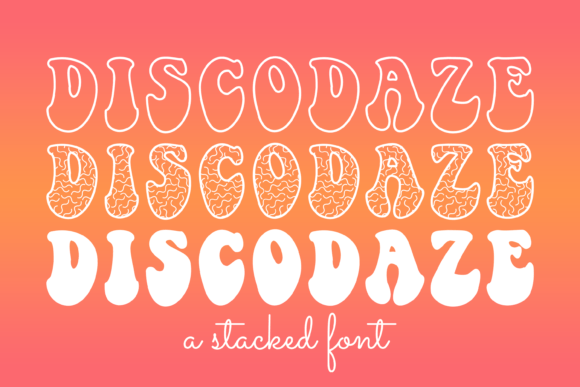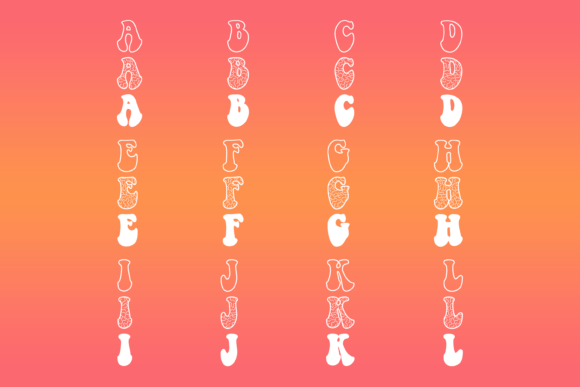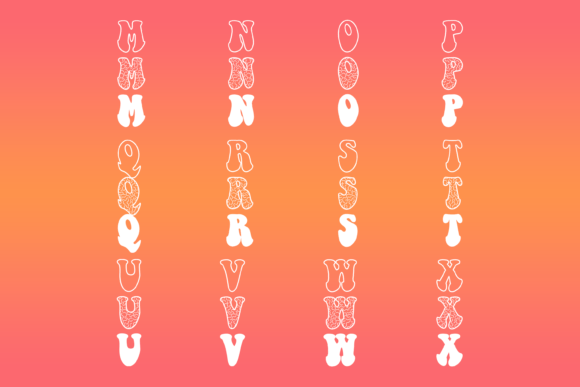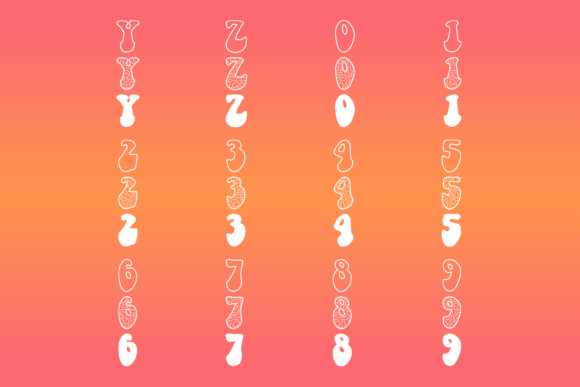
Get Ready to Funkify Your Designs with the Disco Daze Font
Have you ever stared at a blank canvas, waiting for that perfect spark of creativity to strike? It’s a feeling we’ve all been there – the one where our minds are blank, and our hearts are racing to come up with something amazing. But what if I told you that there’s a secret ingredient to ignite that spark and turn your designs into something truly special? Enter the Disco Daze Font, an incredibly cool display font that’s about to take your creativity to the next level.
This fantastic font is designed for custom designs, DIY crafts, and any creation that requires a touch of elegance and whimsy. Whether you’re a seasoned designer or a DIY enthusiast, the Disco Daze Font is an amazing choice that will elevate your projects and make them truly unforgettable. With its unique style and versatility, this font is a valuable addition to any designer’s toolkit, and we can’t wait to see what you create with it.
Key Features of Disco Daze Font
- Unique Characteristics: Disco Daze Font features a distinctive disco-era inspired design, with bold lines, vibrant colors, and a funky flair that adds a touch of nostalgia to any project.
- Character Set: The font includes a comprehensive character set, including uppercase and lowercase letters, numbers, punctuation marks, and special characters, making it suitable for a wide range of applications.
Disco Daze Font Review
I recently had the chance to work with the Disco Daze Font, and I must say it’s a unique addition to any design project. ✨ The font’s funky, retro vibe is perfect for anything from music festivals to 70s-inspired branding.
The font’s most striking feature is its extensive character set, including a wide range of punctuation and special characters. ✨ This makes it a great choice for designers who need to create eye-catching, attention-grabbing headlines.
- ⚠️ Limited legibility at small font sizes. While the font looks great at large sizes, it can become difficult to read at smaller sizes.
- ⚠️ Some characters, such as the ‘e’ and ‘a’, can be quite similar in appearance. This can lead to confusion if not carefully chosen.
- ⚠️ The font’s retro aesthetic may not appeal to all designers or clients. Some may find it too kitschy or over-the-top.
Overall, the Disco Daze Font is a fun and versatile addition to any design project. While it may have some limitations, it’s perfect for designers who want to add a touch of retro flair to their work. With careful selection and use, it can be a real showstopper.
For the most out of Disco Daze Font, try combining it with bold, neon colors and geometric shapes to create a retro-futuristic vibe. Experiment with font sizes and styles to add visual interest to your design. Don’t be afraid to mix and match different fonts to create a unique look.
Disco Daze Font is perfect for:
- Retro-themed designs
- Party invitations and promotional materials
- Neon-lit graphics and posters
- 80s and 90s-inspired graphics and designs
Q: Does the Disco Daze Font include any special characters or accents?
Yes, the Disco Daze Font includes a range of special characters, including accents, punctuation, and symbols. It also includes a comprehensive character set, making it suitable for use in a variety of languages, including English, Spanish, French, and more.